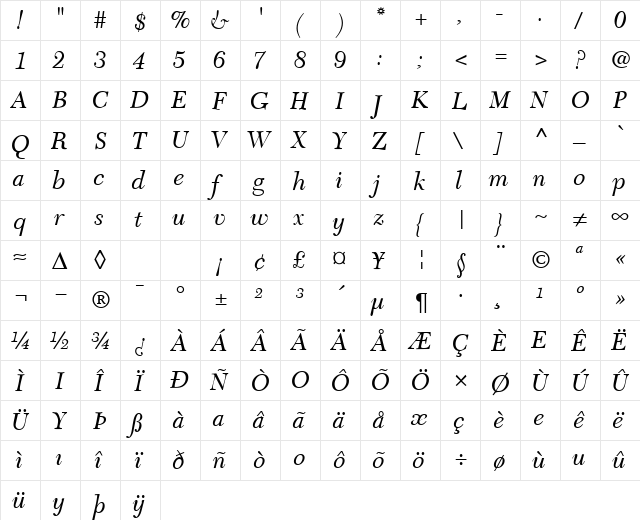
CalendarNova BoldItalic
Design Context for CalendarNova Typeface
CalendarNova is a composed and adaptable typeface that performs quietly and consistently across a wide range of design contexts. The dynamic lean of this cut emphasises speed and emphasis in any layout. The heavy weight commands attention and anchors typographic hierarchies.